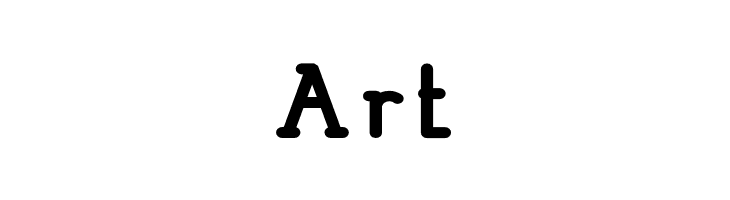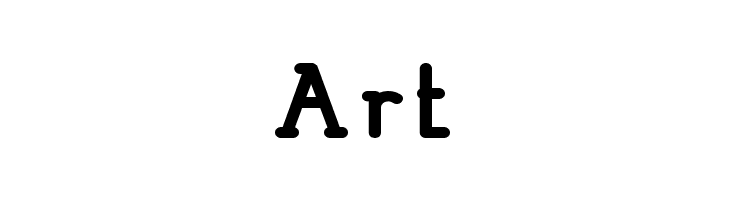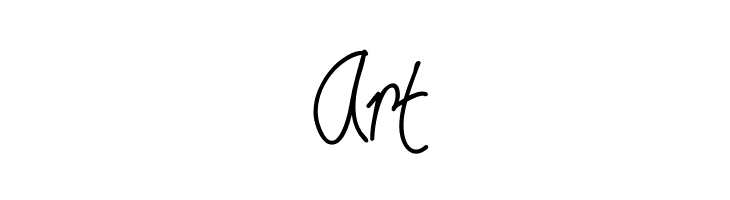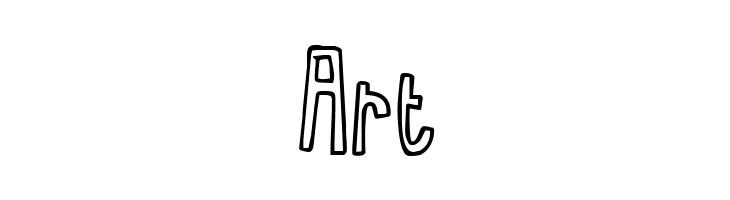
• Hastings Bold Italic
A bold, italicized font with thick strokes and a dynamic slant.
• HASTON Bold
A bold, rounded font with a playful and approachable style.
• HASTON DEMO Bold
A bold, playful font with rounded edges and a modern-retro vibe.
• Hattha Bold
A bold, rounded font with a playful and friendly style.
• Hauser Bold
A bold, geometric font with a strong, industrial style.
• Hauser Bold Italic
A bold, italicized font with sharp angles and a modern, dynamic style.
• Hauser Condensed Bold
A bold, condensed font with a geometric and powerful style.
• Hauser Condensed Bold Italic
A bold, italic, and condensed font with high contrast and dynamic angles.
• Havent Slept in Two Days Bold
• HavingWrit Bold